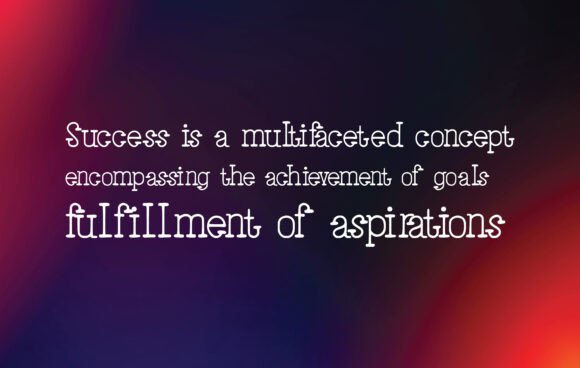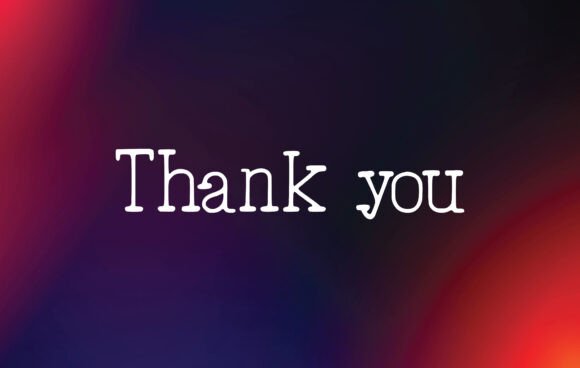
The Perfect Boot for Your Creative Journey
Have you ever been stuck on a design project, unable to find the right font to bring your idea to life? It’s a frustrating feeling, but one that can be easily resolved with the right tool. For designers, the perfect font can be the difference between a mediocre design and a show-stopping masterpiece.
Enter the Boots Font, a beautiful and elegant font that’s sure to take your creative ideas to new heights. With its versatility and sophistication, it’s the perfect choice for creating eye-catching logos, branding, and quotes. Whether you’re a seasoned designer or just starting out, the Boots Font is a valuable addition to your toolkit.
So why settle for a mediocre font when you can boot up your creativity with the Boots Font? This lovely font is waiting to help you create something truly special.
Boots Font Key Features
- Font Size: Boots Font is available in multiple sizes, including 100, 200, 300, 400, 500, 600, 700, 800, 900, with each size offering a unique character and feel.
- Resolution: Boots Font is designed to be resolution-independent, making it suitable for use in various digital applications, including web design, mobile apps, and print materials.
- Unique Characteristics: The Boots Font features a unique blend of modern and vintage elements, with bold lines, geometric shapes, and subtle textures that give it a distinctive look.
- Language Support: Boots Font supports a wide range of languages, including Latin, Cyrillic, and Greek, making it a versatile choice for global branding and communication.
- Scalability: Boots Font is highly scalable, allowing it to be used in various contexts, from small text to large headlines, without losing its clarity and impact.
Boots Font Review
Overall, I found the Boots Font to be a unique and stylish choice for designers. It has a distinctive, modern aesthetic that can add a touch of sophistication to any project.
- ✨ Bold and expressive: The Boots Font is perfect for headings and titles, as it really stands out on the page.
- ✨ Versatile: From formal to informal designs, the font can adapt to any style or tone.
- ✨ High legibility: Even at smaller font sizes, the Boots Font remains clear and easy to read.
- ⚠️ Limited character set: The font might not be suitable for projects that require a wide range of special characters or accents.
- ⚠️ Not ideal for small text: While the font is highly legible at larger sizes, it can become somewhat cramped and difficult to read at smaller sizes.
The Boots Font is a solid choice for designers who want to add a touch of modernity to their projects. While it may have some limitations, its unique style and versatility make it a great option for the right use cases.
Getting the Most Out of Boots Font
For optimal results, use Boots Font for headings and titles, and pair it with a clean sans-serif font for body text.
Experiment with different font sizes and colors to create visual hierarchy and emphasis.
Boots Font is ideal for:
- Travel and tourism marketing
- Outdoor and adventure promotions
Lato is a clean and modern sans-serif font that is highly legible and versatile. It is suitable for use in a wide range of applications, from body text to headings, and is a great alternative to Boots Font for designers who want a more minimalist and neutral look. Lato is more geometric and straightforward compared to Boots Font, making it a better choice for digital interfaces and corporate branding.